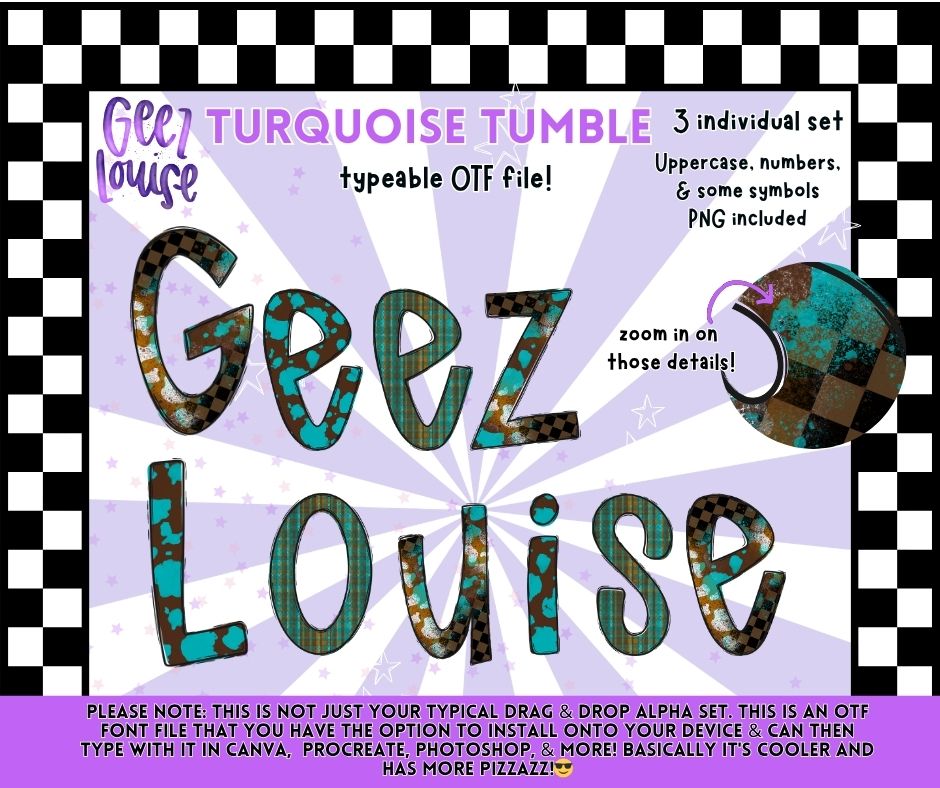
Turquoise Tumble OTF Font | Rustic Western Alpha + PNG | Typeable Font for Canva & Procreate
little western, a little worn-in, and a whole lot of character 🤠✨
The Turquoise Tumble OTF font brings that rustic, vintage feel with textured turquoise, distressed details, and subtle checkered accents. This is a fully typeable font file, making it easy to create custom words and designs without dragging and dropping each letter.
💡 Perfect for adding a rustic, boutique-style touch to your designs with way less effort!